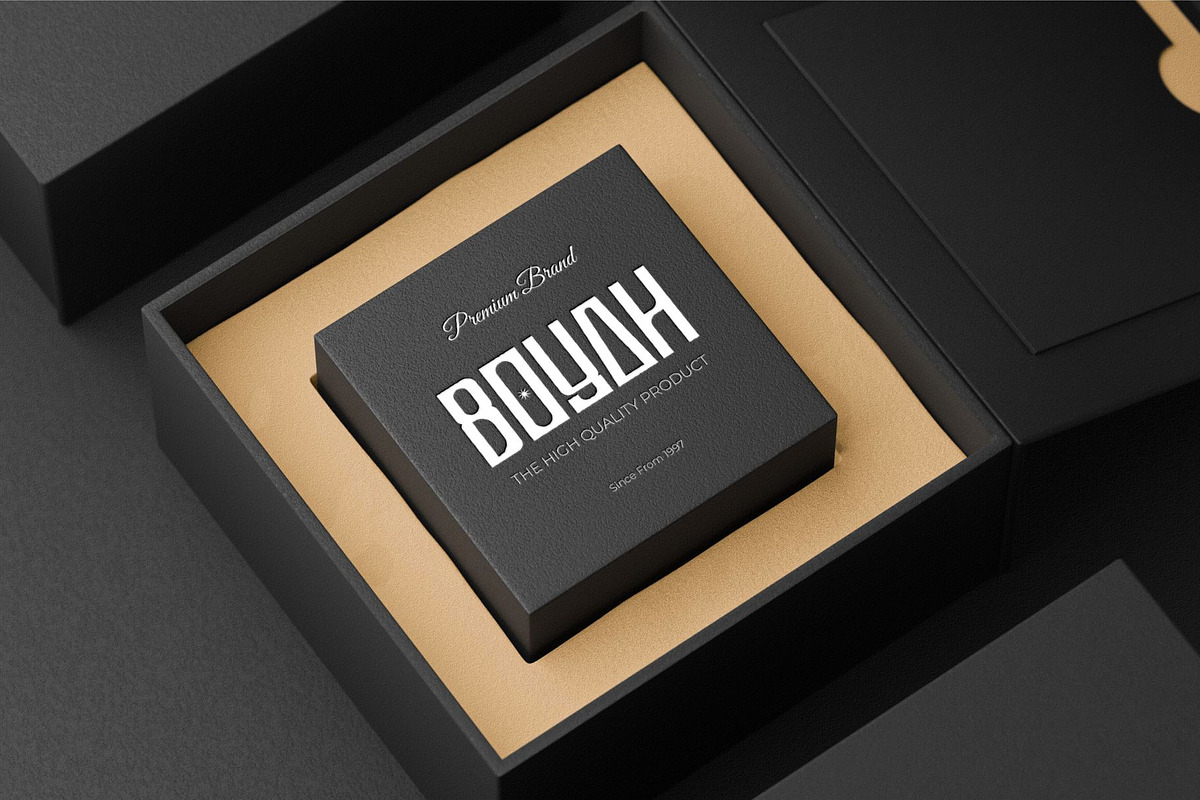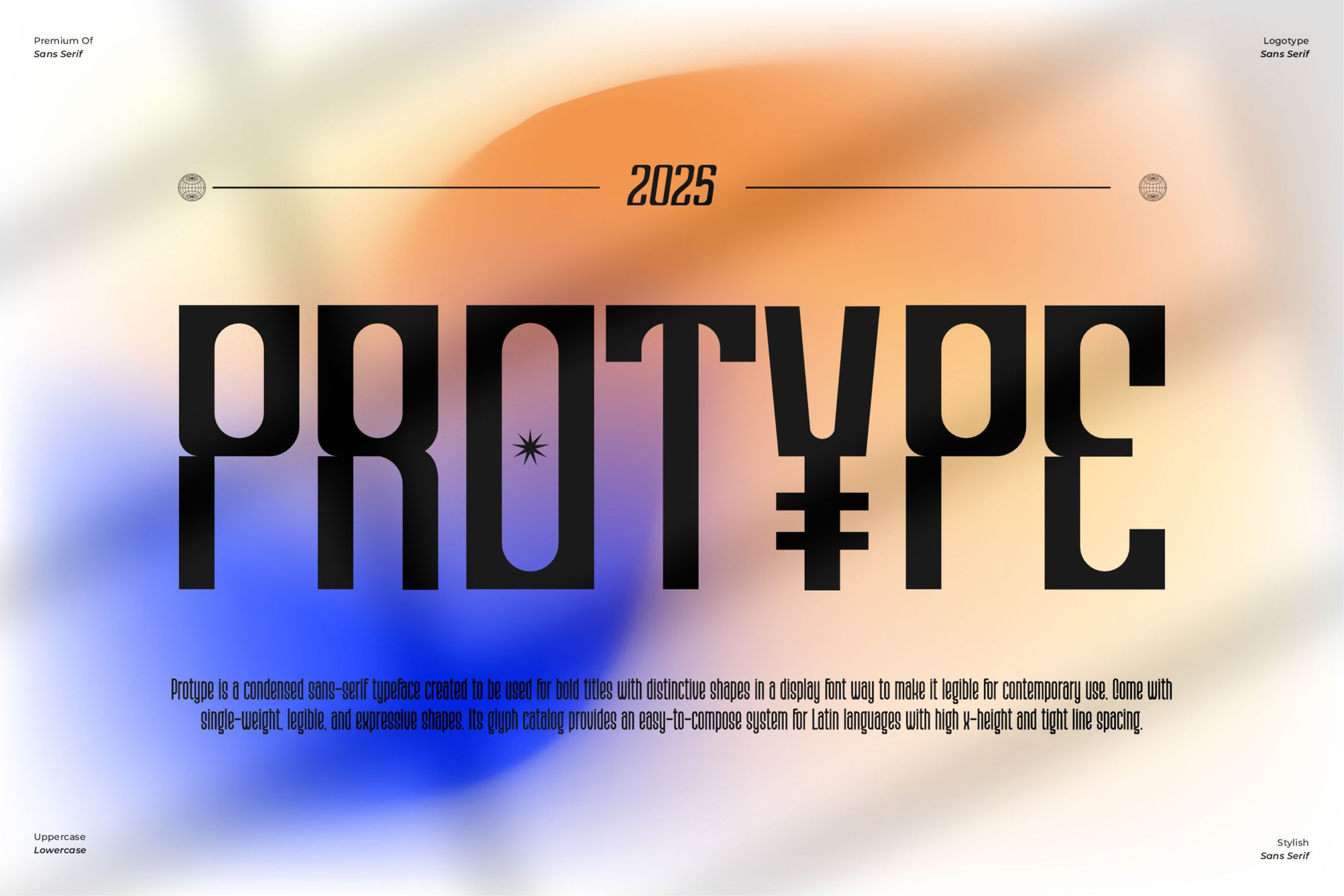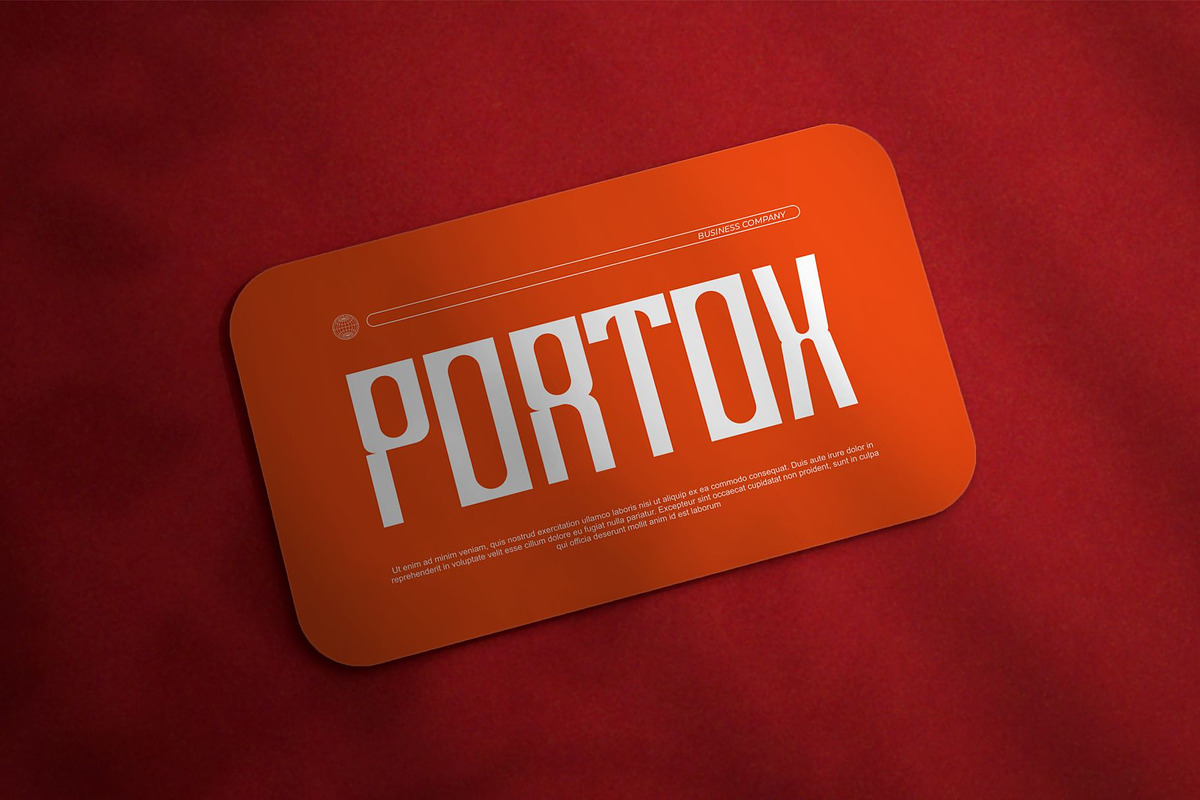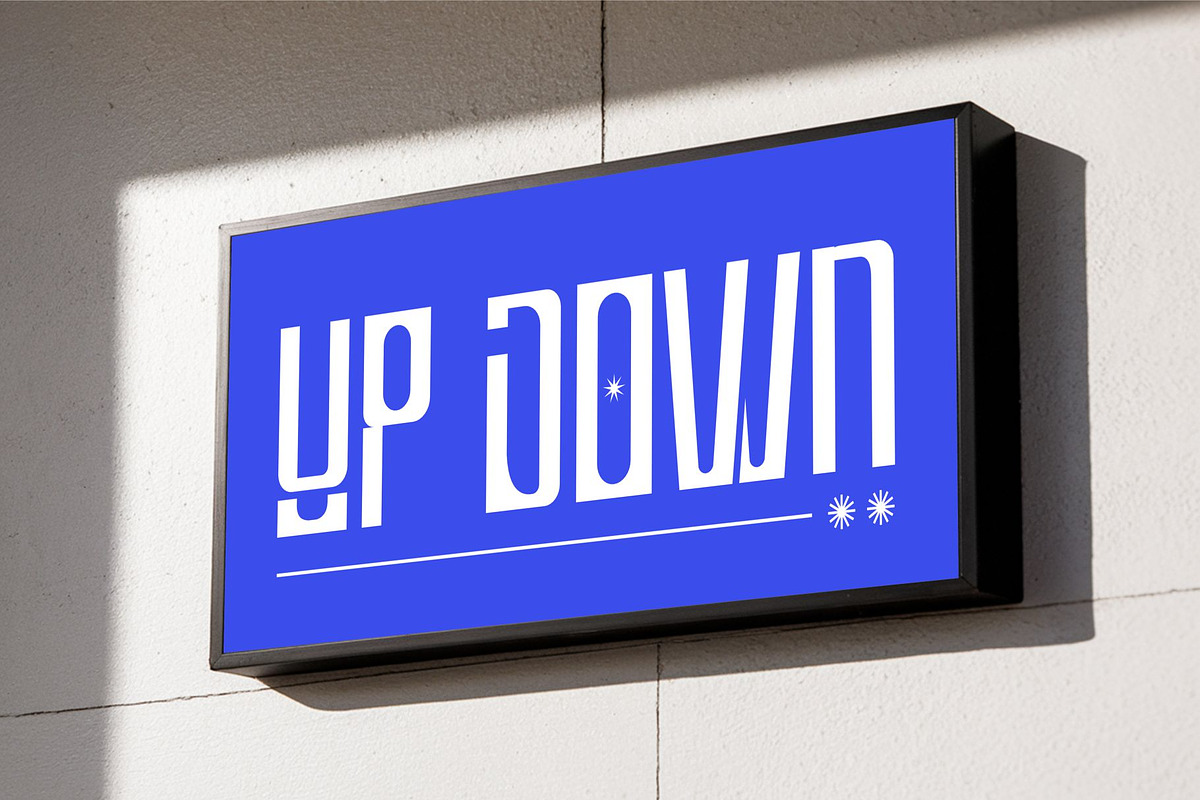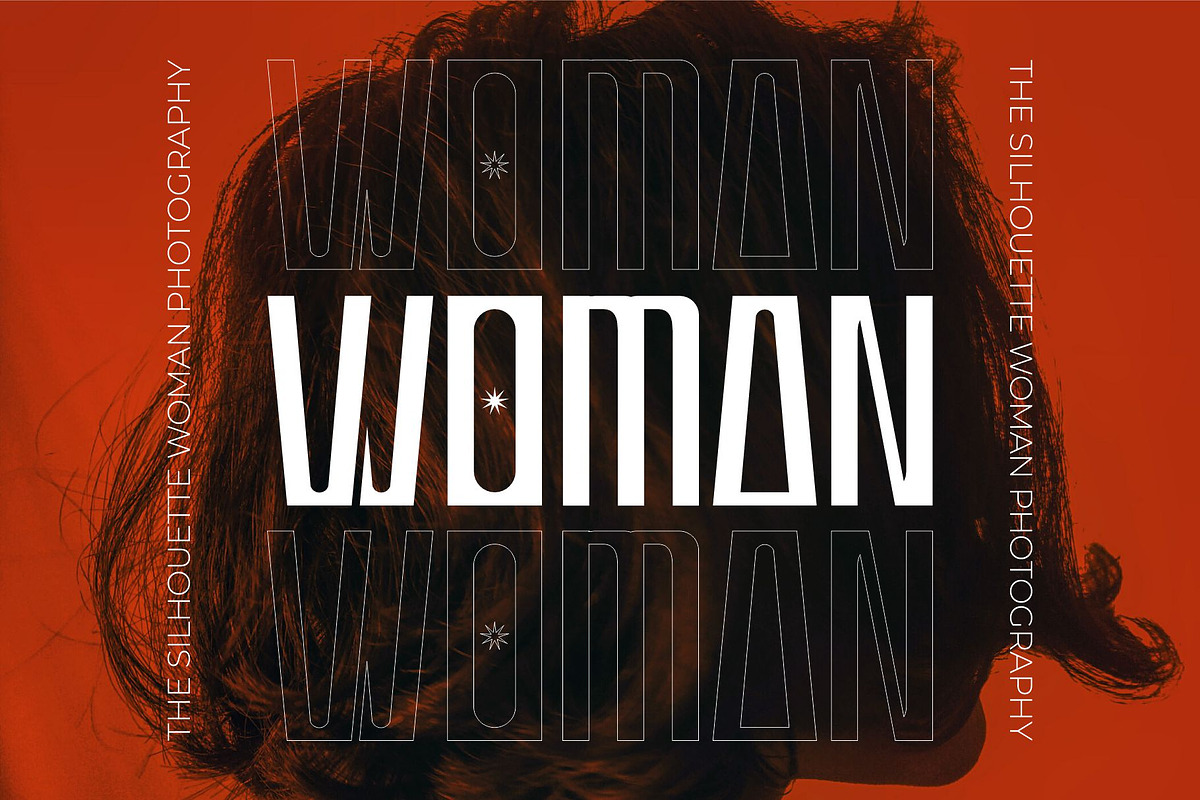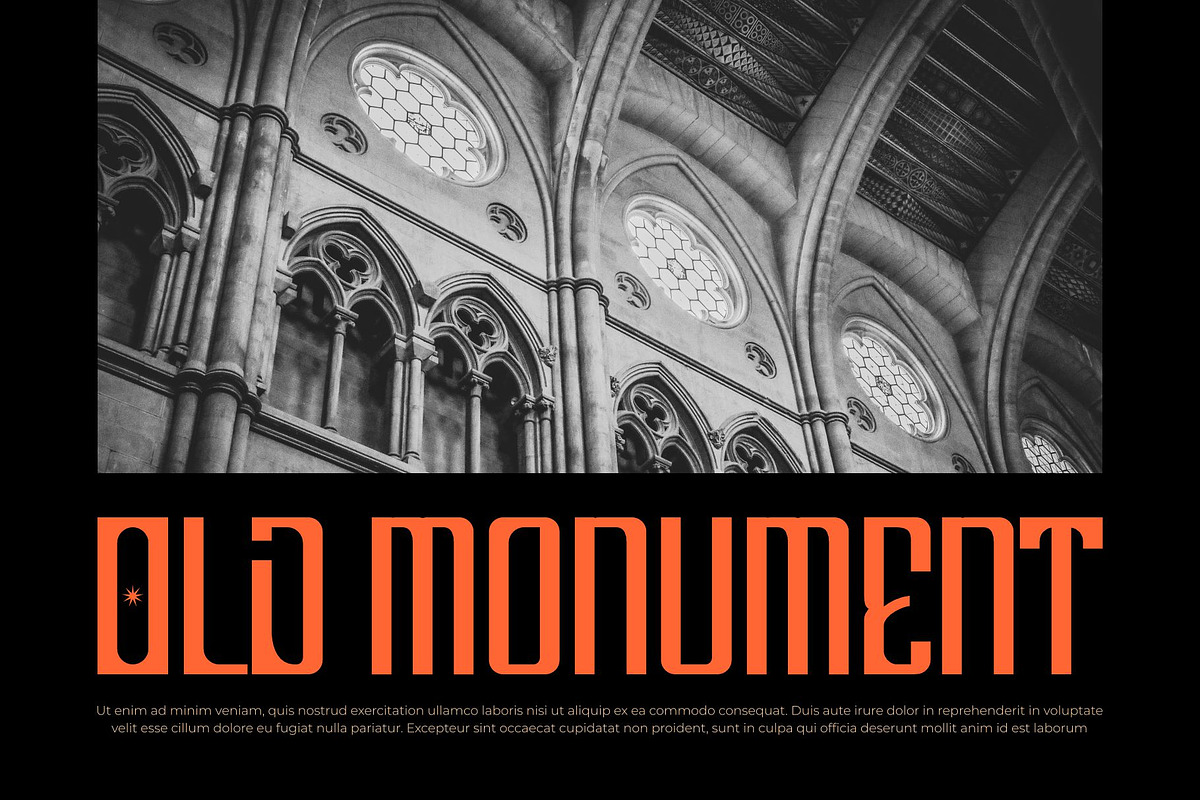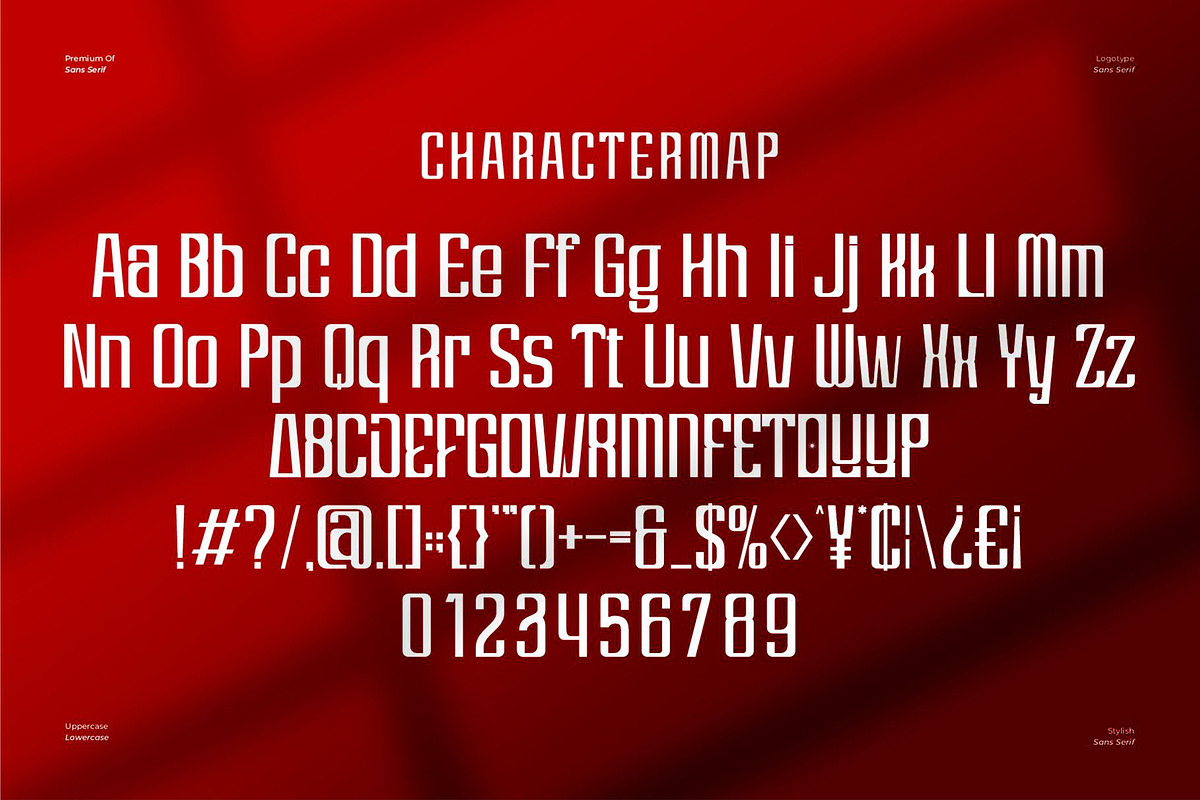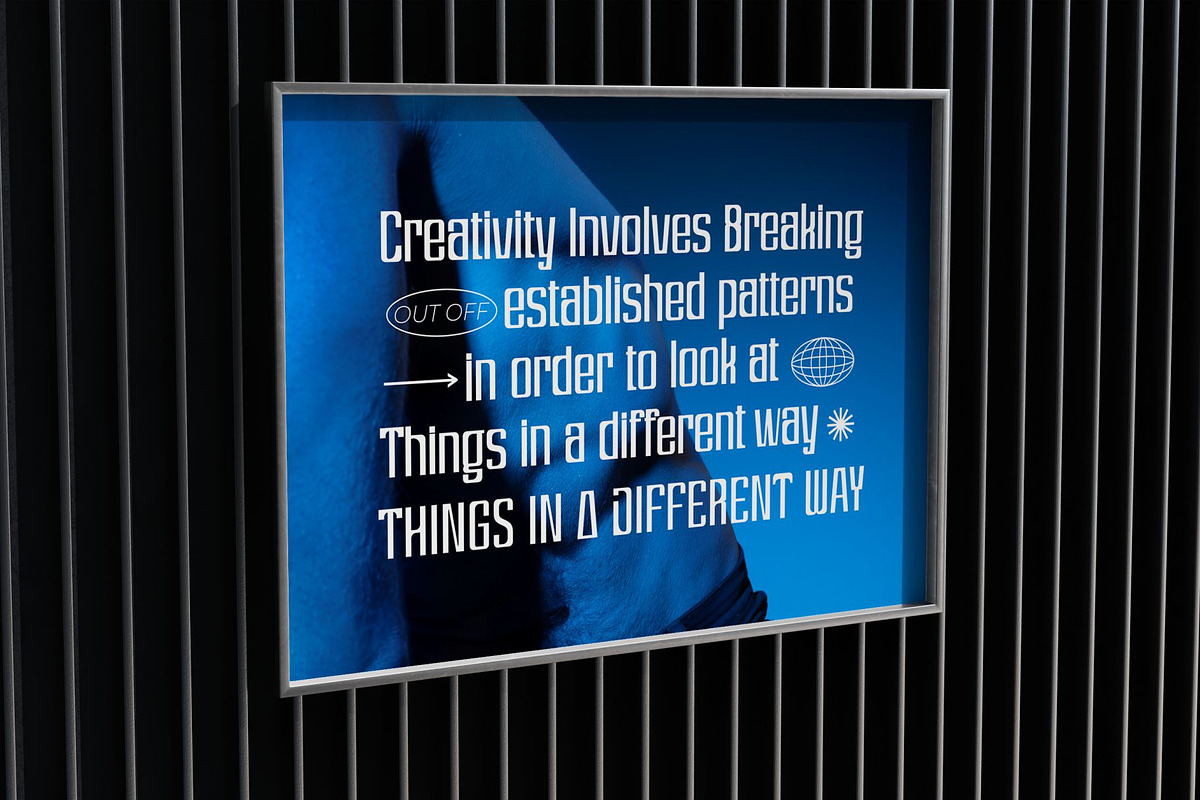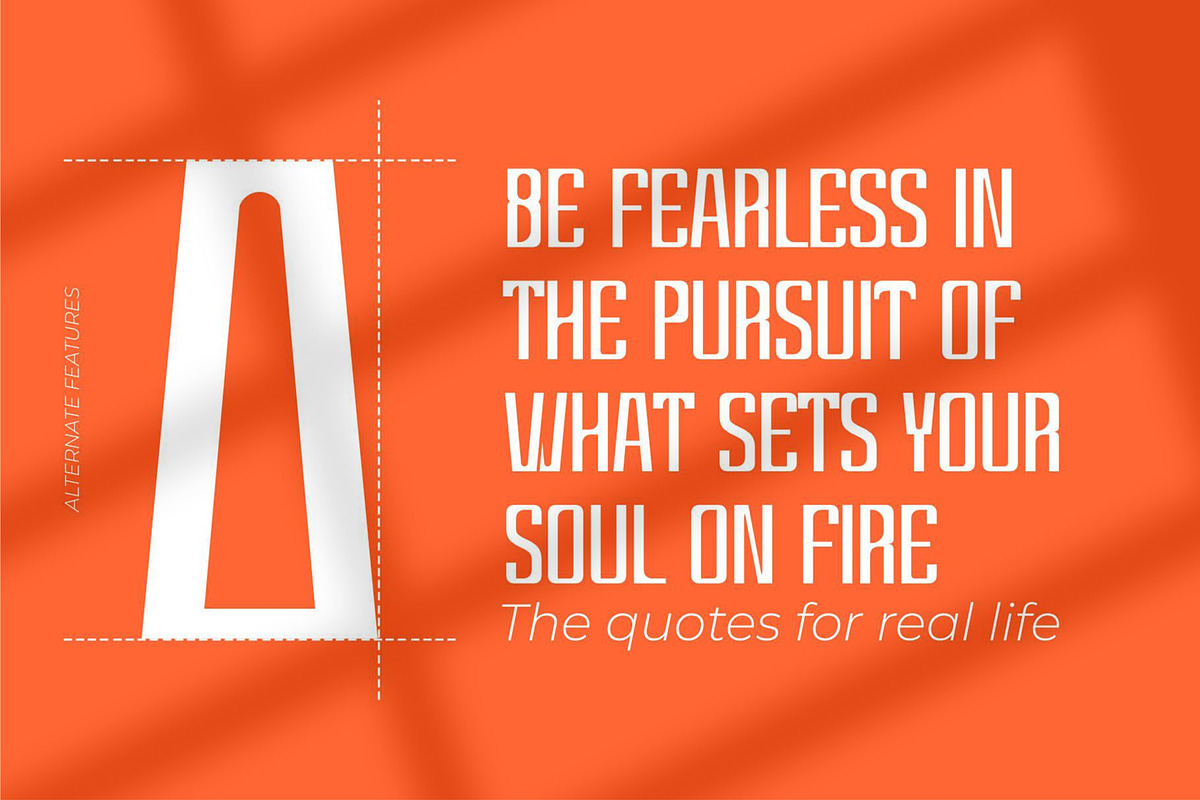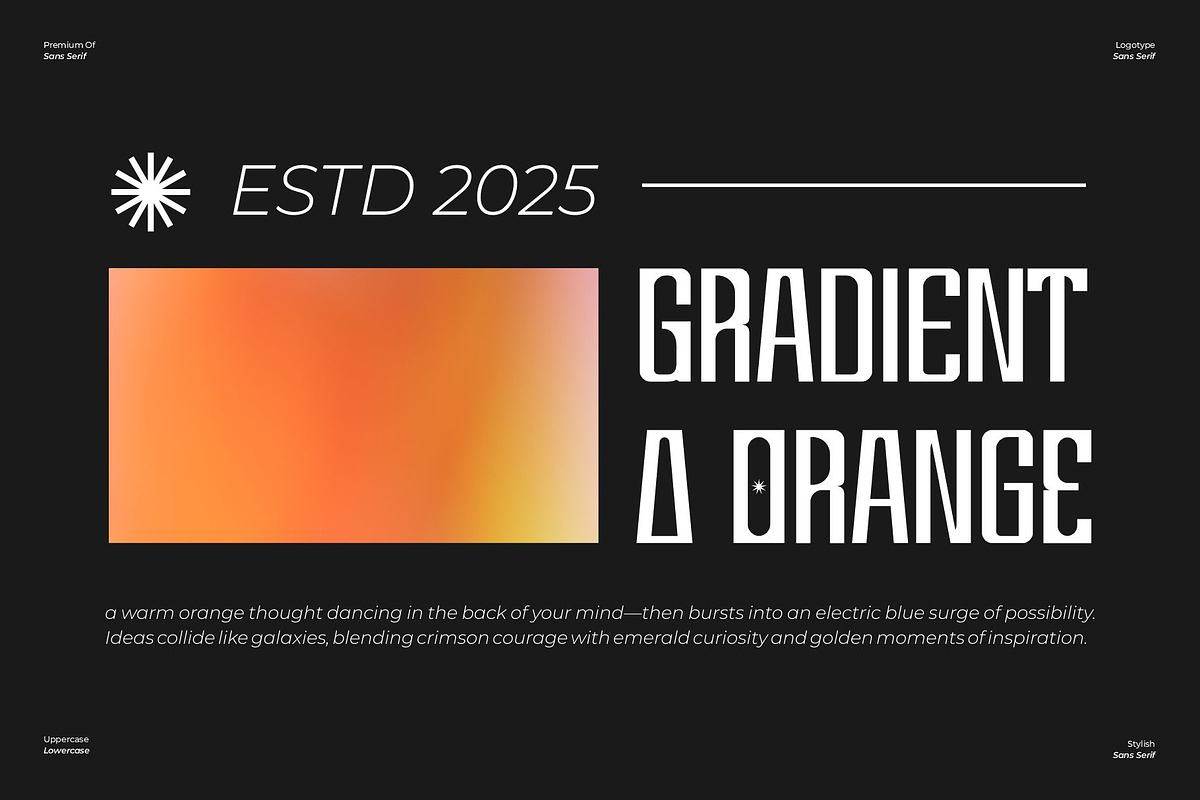
Protype || Condensed Sans Serif Font
Introducing Protype is stylish sans serif Font modern, trendy and Unique. It has a unique character with wood theme. It is perfect to be combined with invitation card designs, company logos, movie titles, movie names, business cards, book titles, brand names and various other designs.